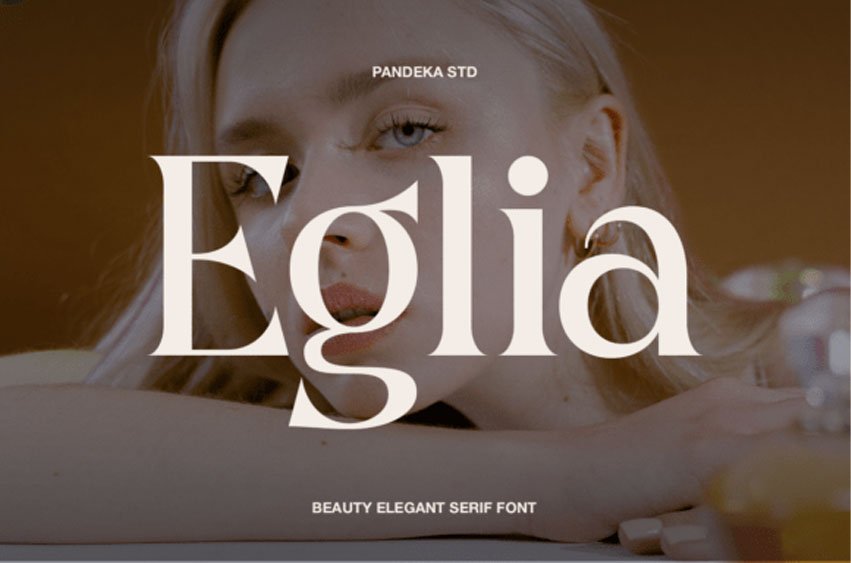
Eglia Font is a beauty elegant serif font crafted with refined letterforms, graceful curves, and timeless sophistication. Its high-contrast serif design brings a luxurious and feminine impression, making it perfect for beauty branding, skincare packaging, cosmetic labels, fashion editorials, magazines, logos, invitations, premium product packaging, and elegant display projects.
The clean structure offers excellent readability while expressing a soft and upscale visual identity.